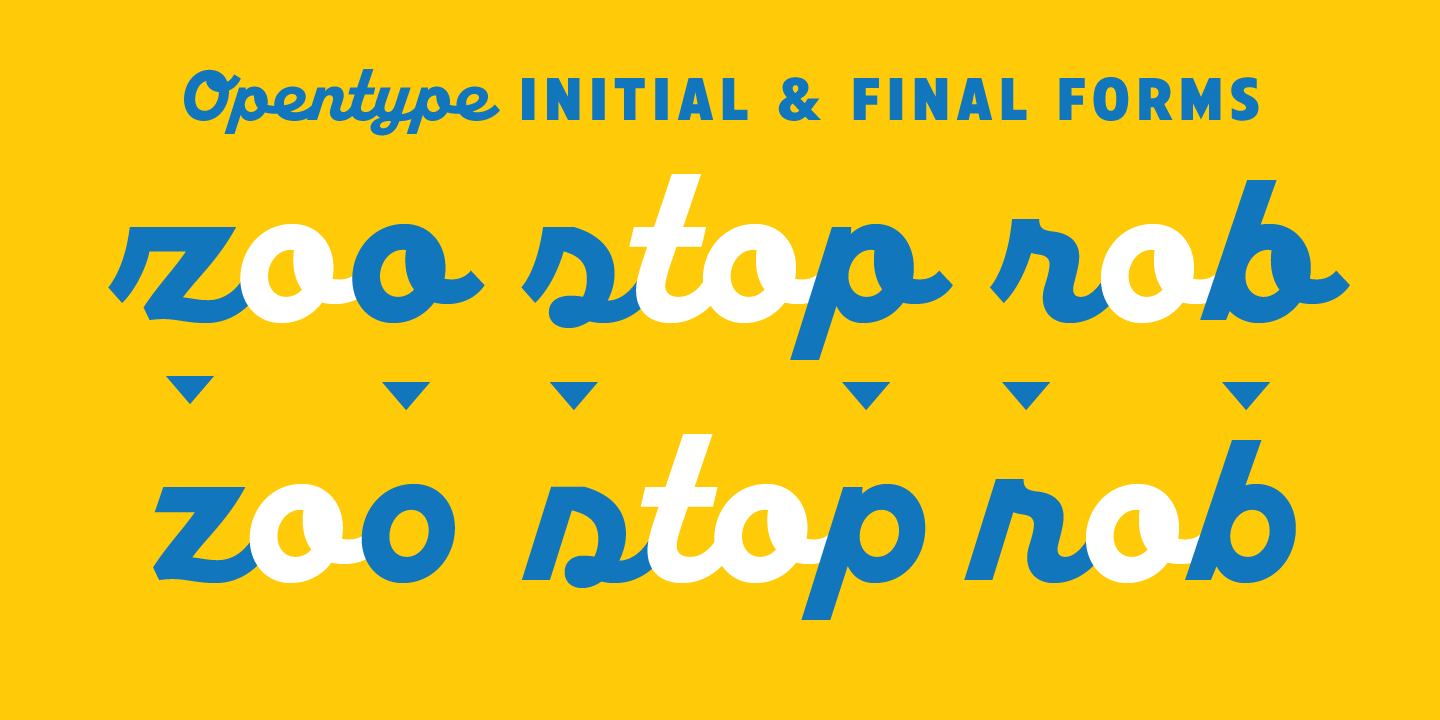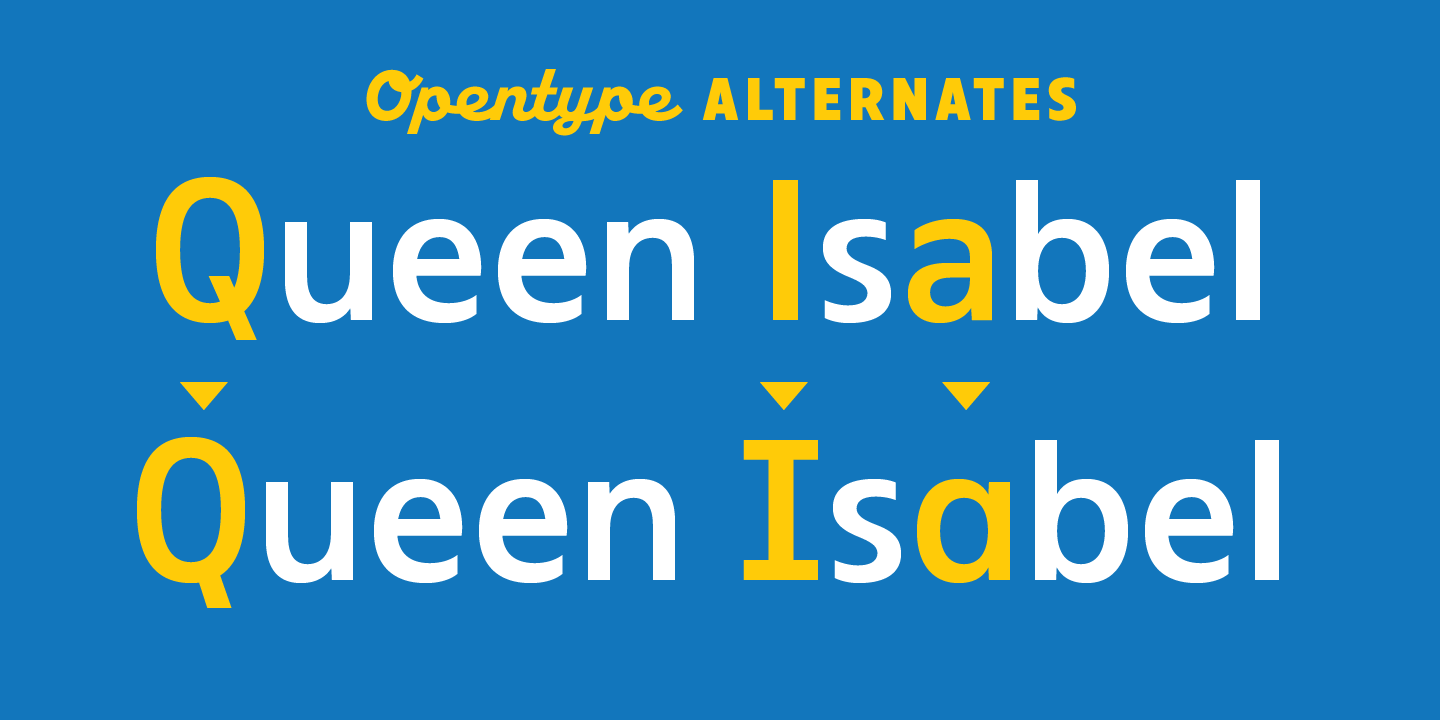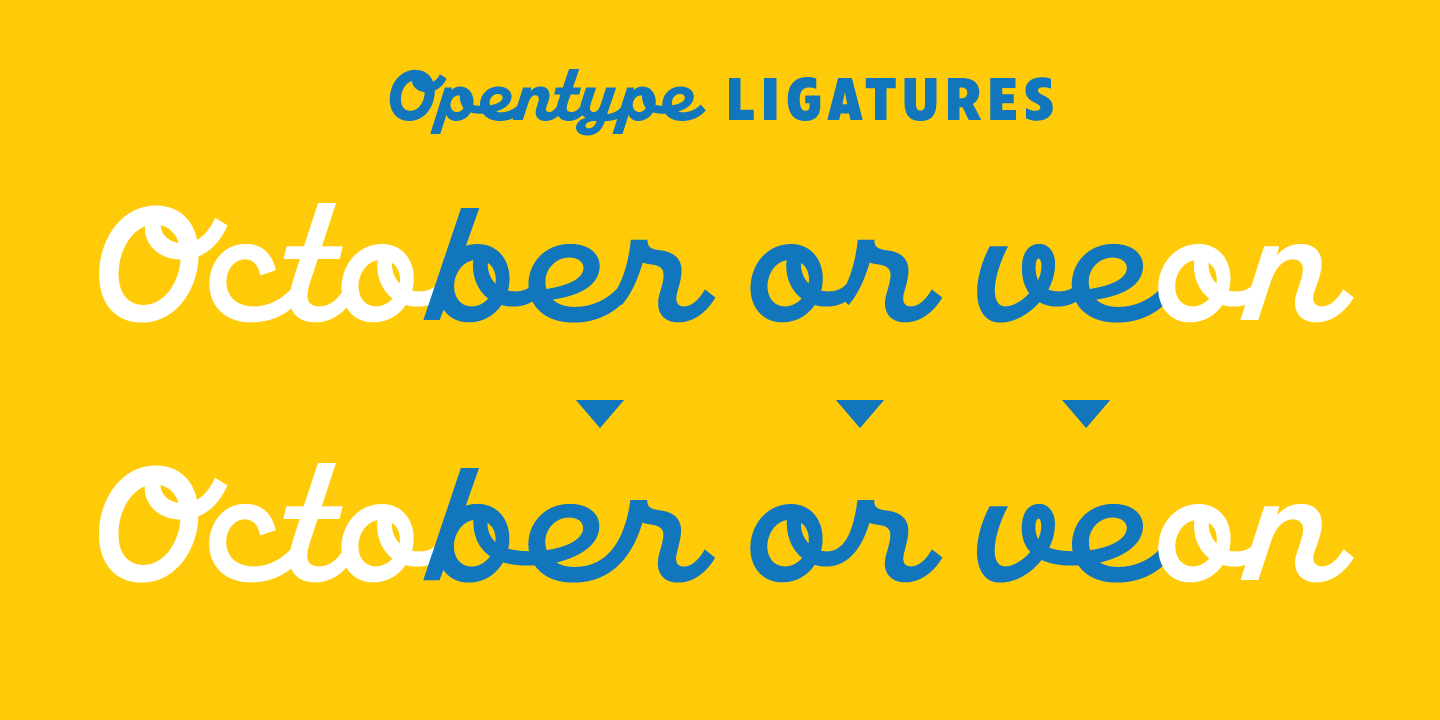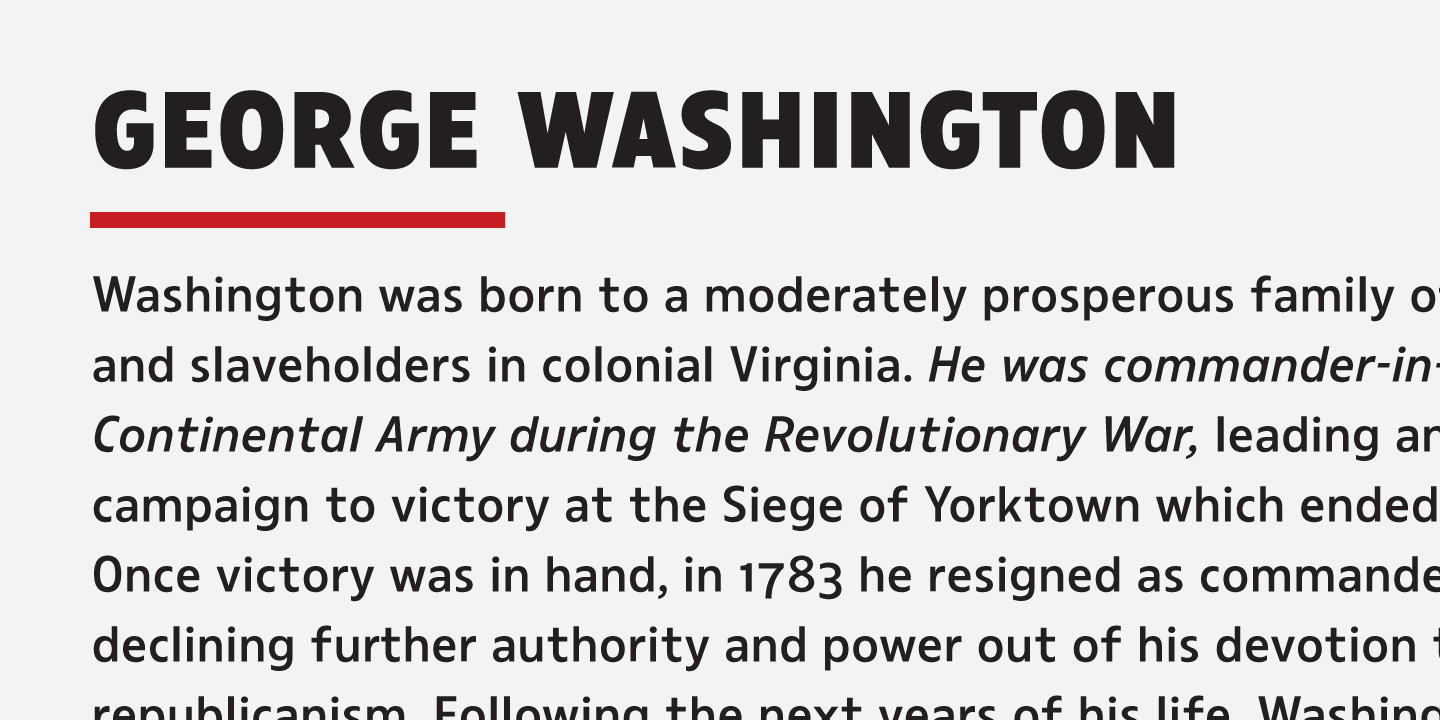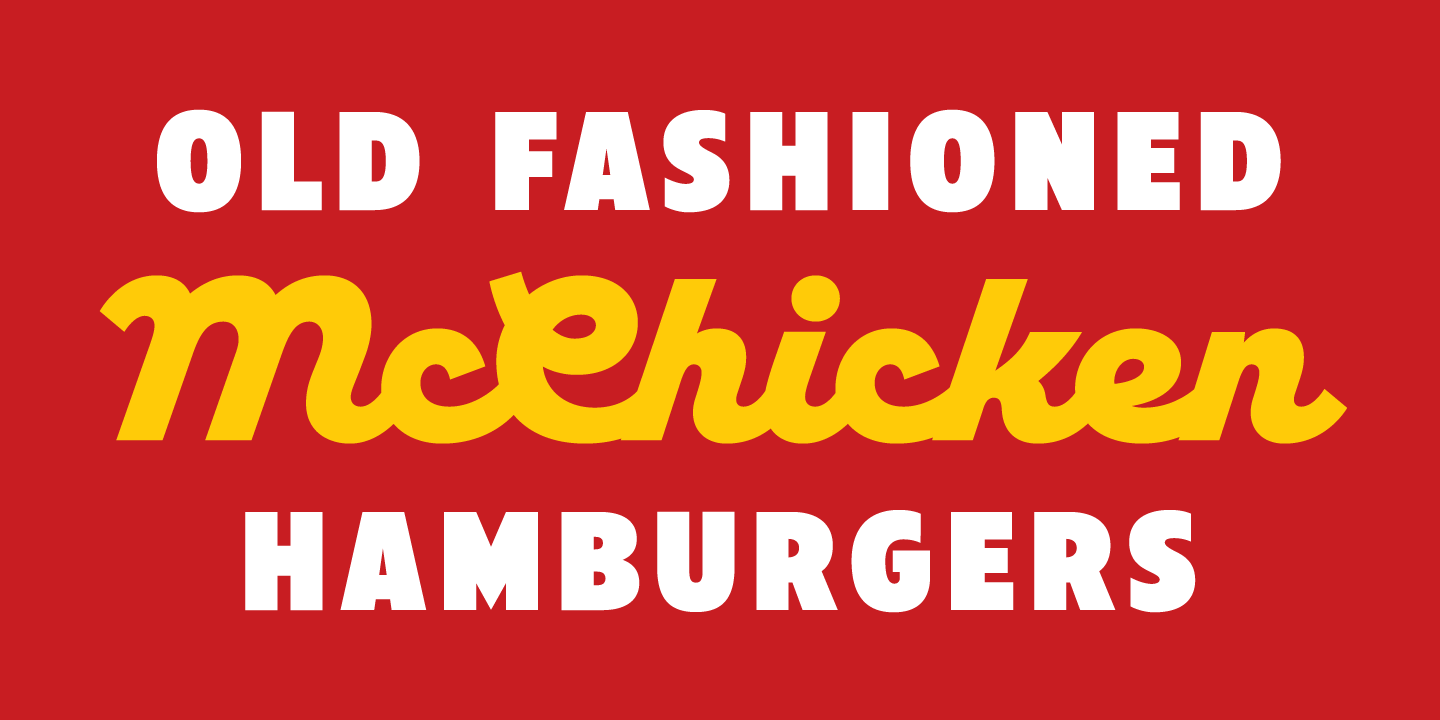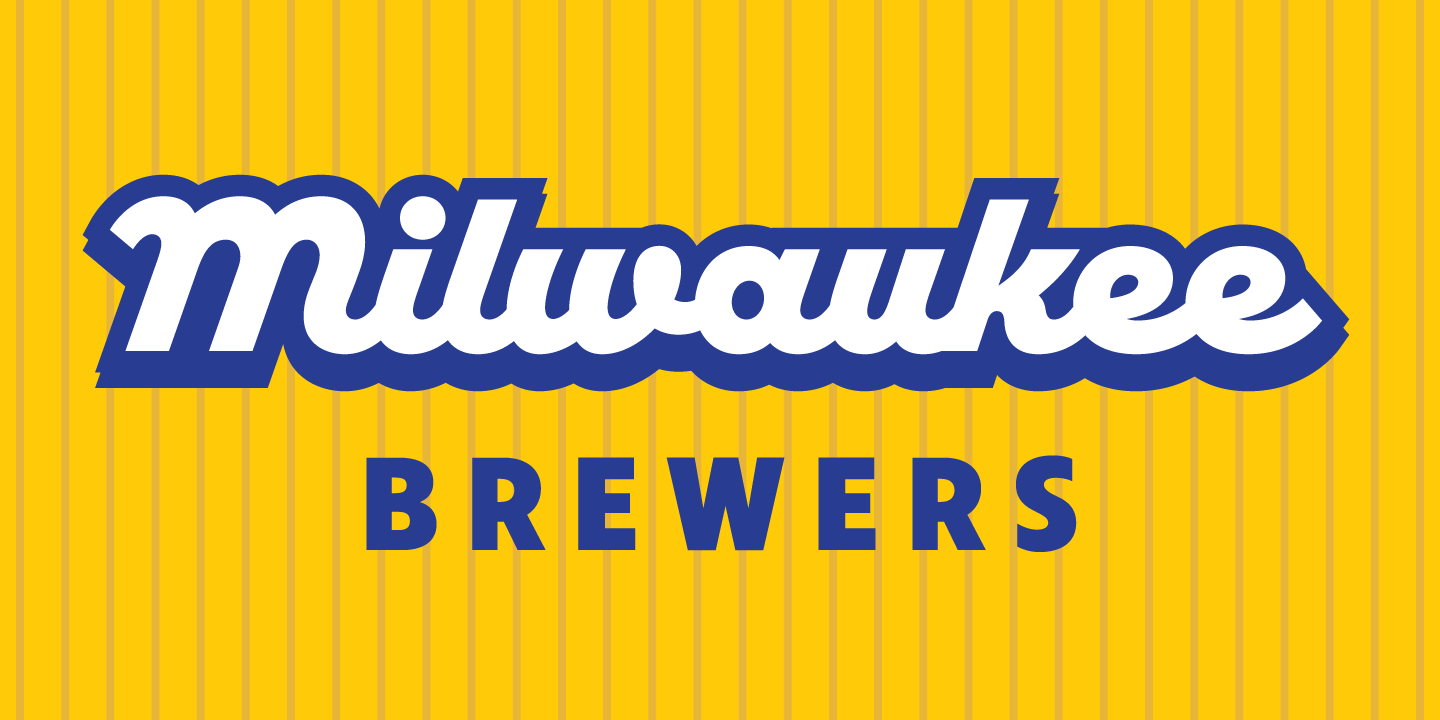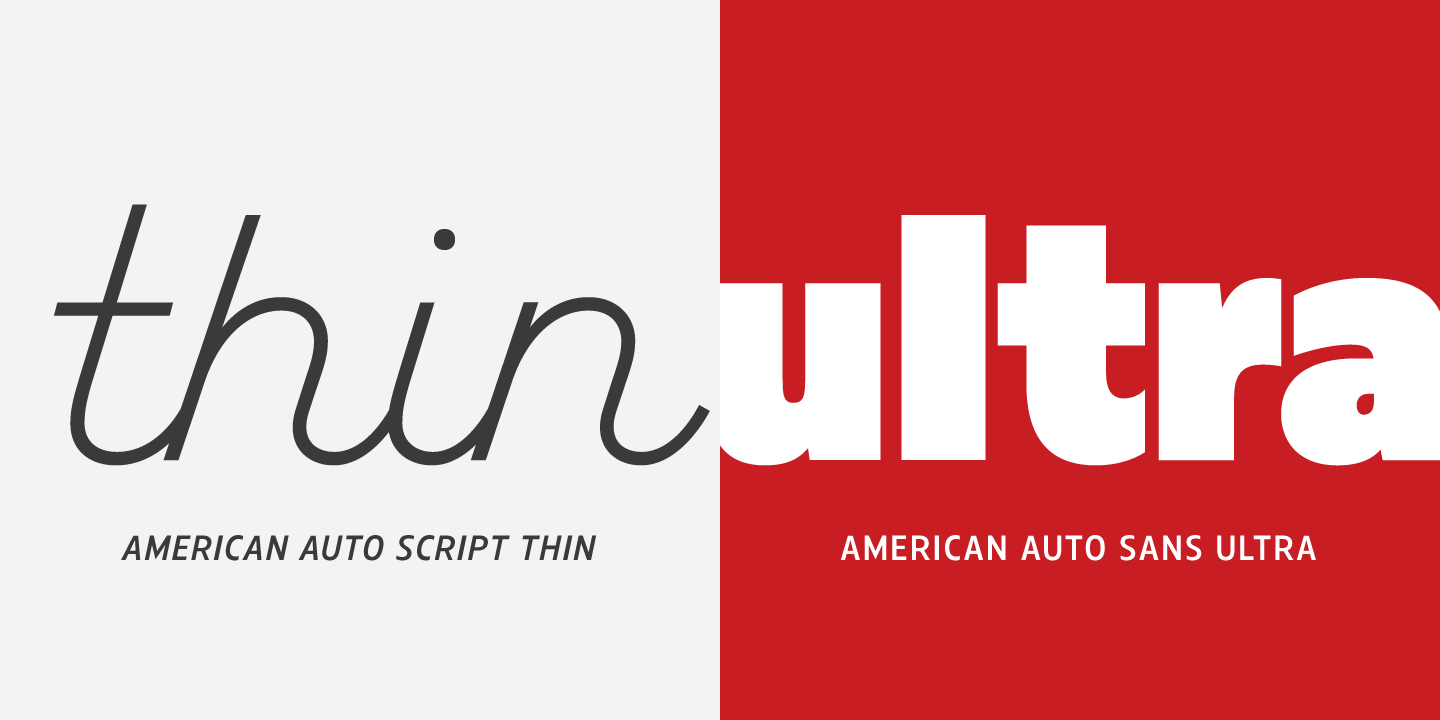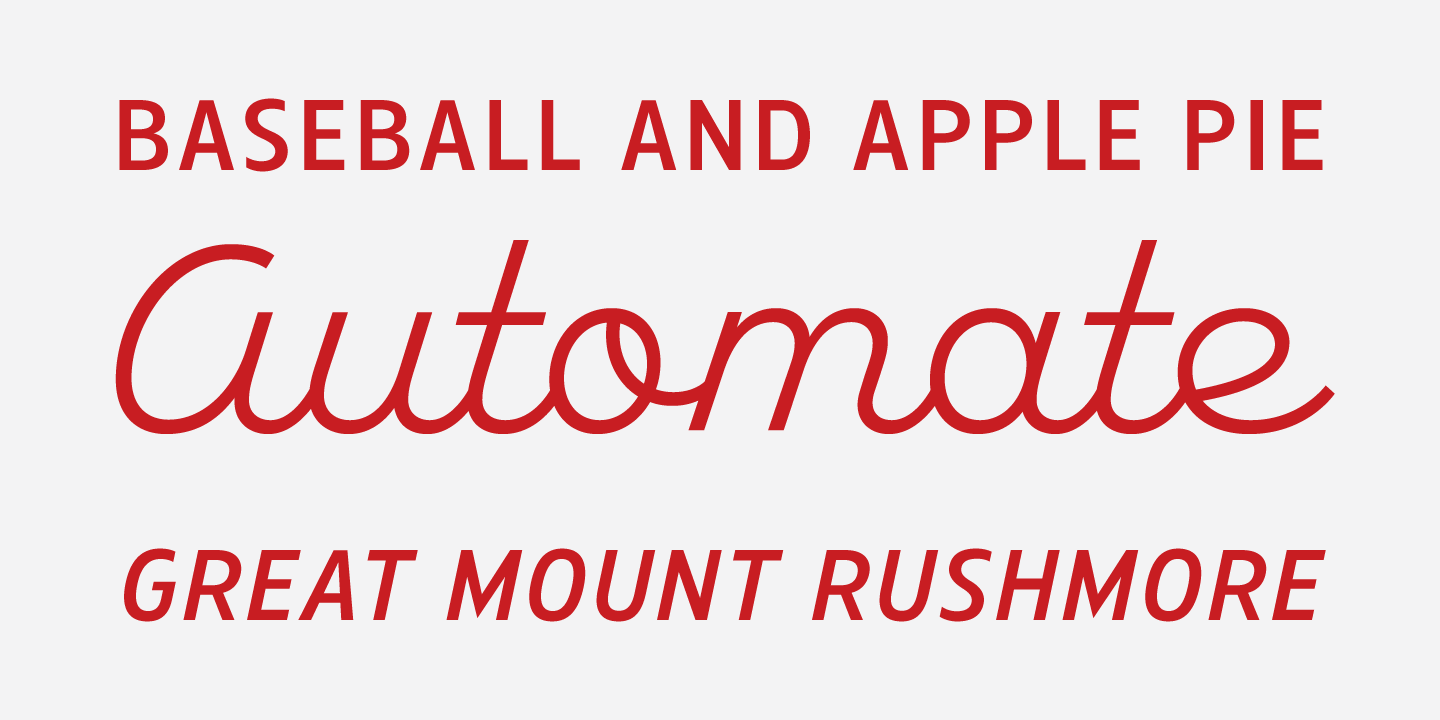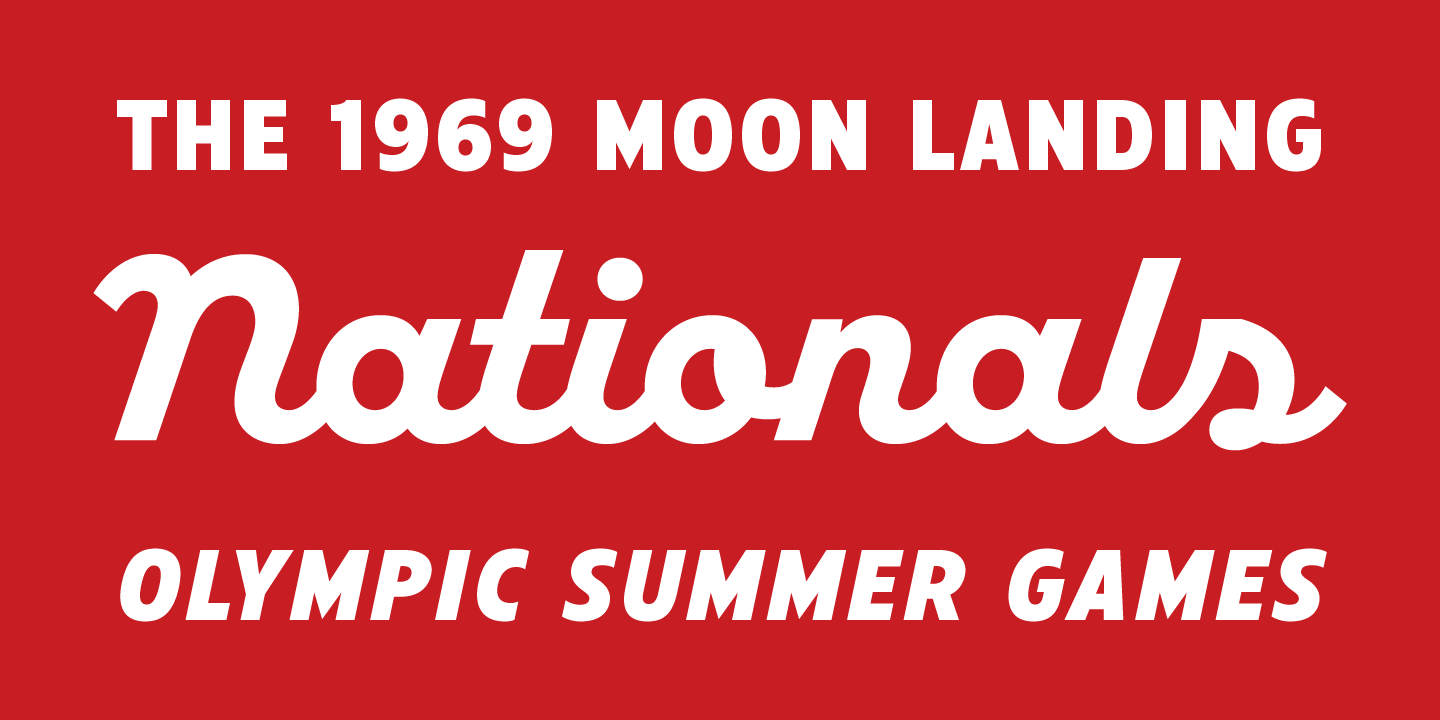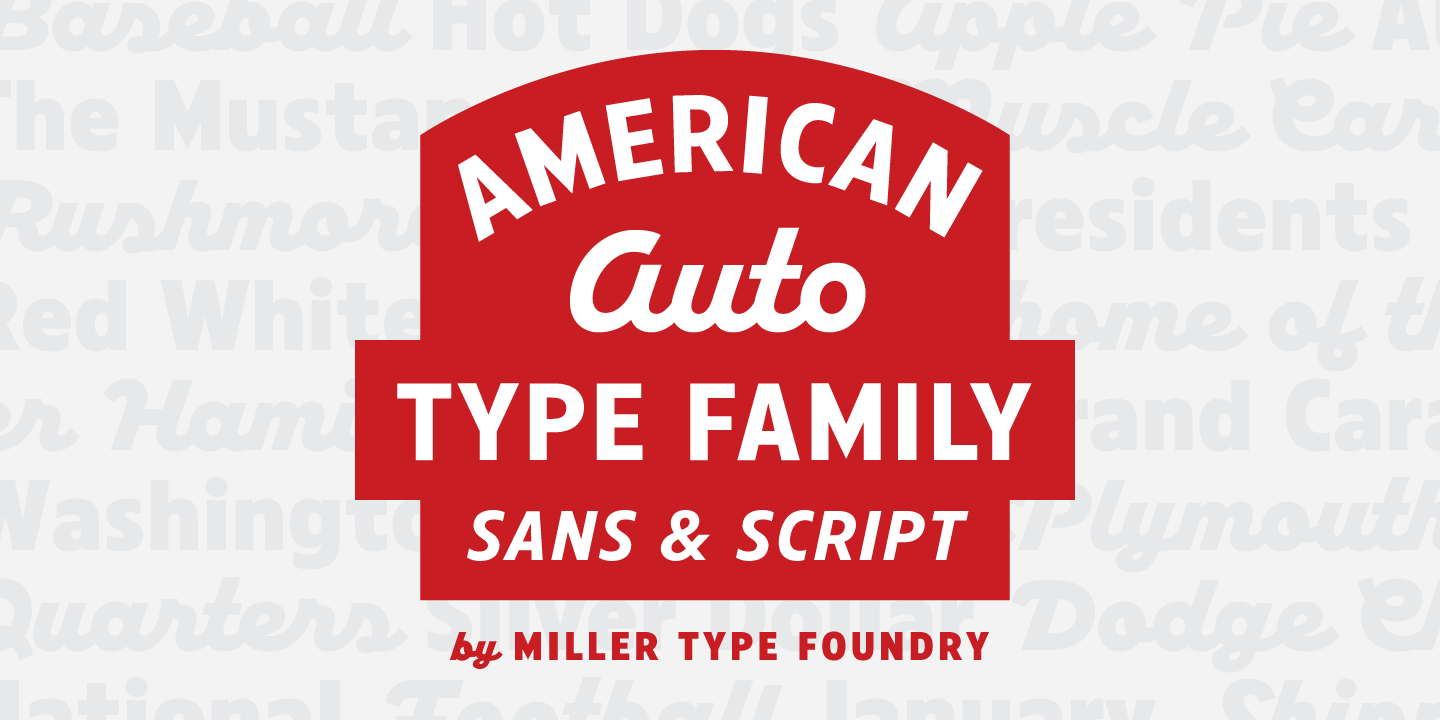
Hot Dogs, Apple Pie, Baseball and great TYPOGRAPHY are deeply rooted in American culture. American Auto is a Type Family that embodies that culture visually. It joins a robust workhorse sans with a playful script that brings you back to 70+ years ago, while at the same time remaining as contemporary as any new 2019 design. This unique pair work together in harmony to create wonderful designs for a variety of uses. From book covers to posters, web sites to apps, American Auto is an excellent choice to create striking designs that stand out from the crowd! American Auto also features many Opentype Features such as: Alternate Characters, Initial & Final Forms, Contextual Alternates, Old Style Figures, Lining Figures, Numerators & Denominators, Fractions, and more! This typeface has really been designed to meet any challenge that a designer can throw at it!